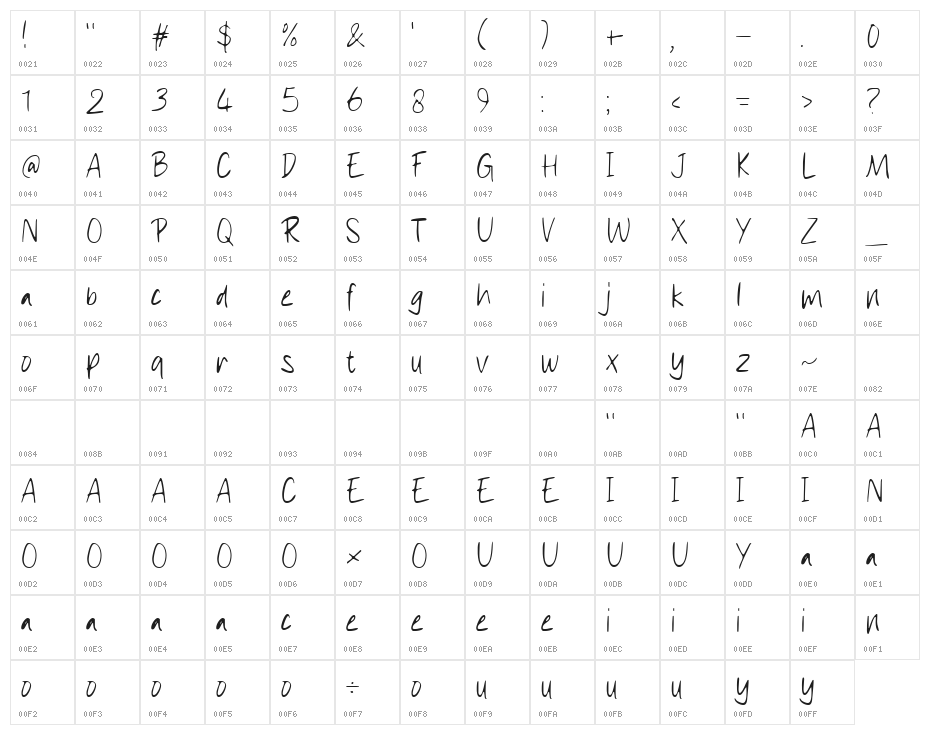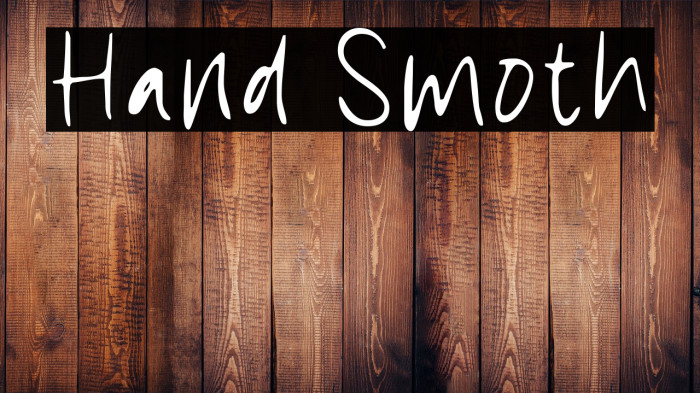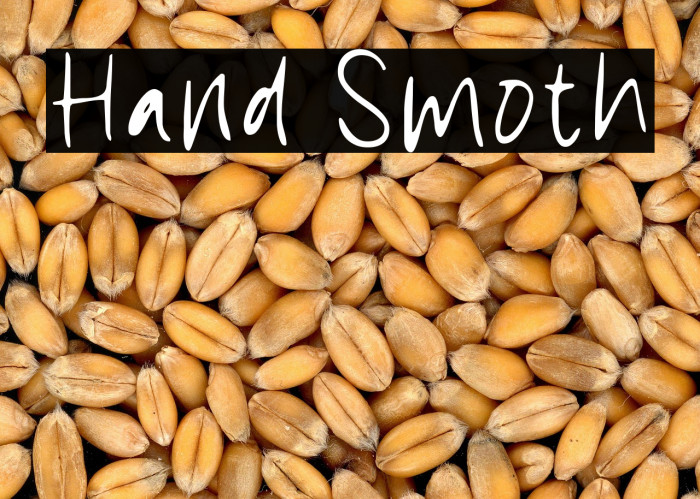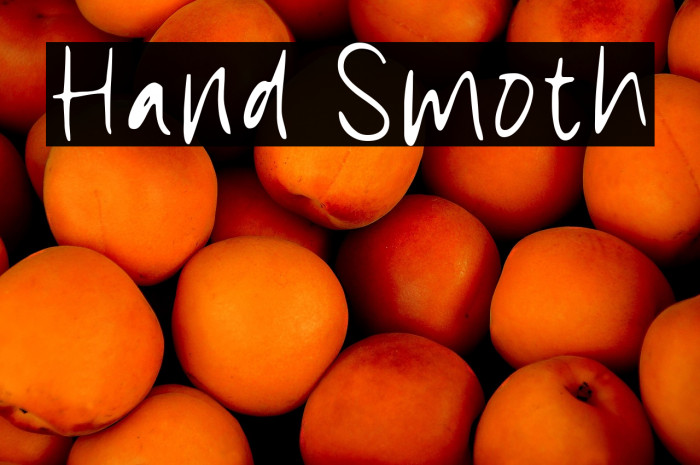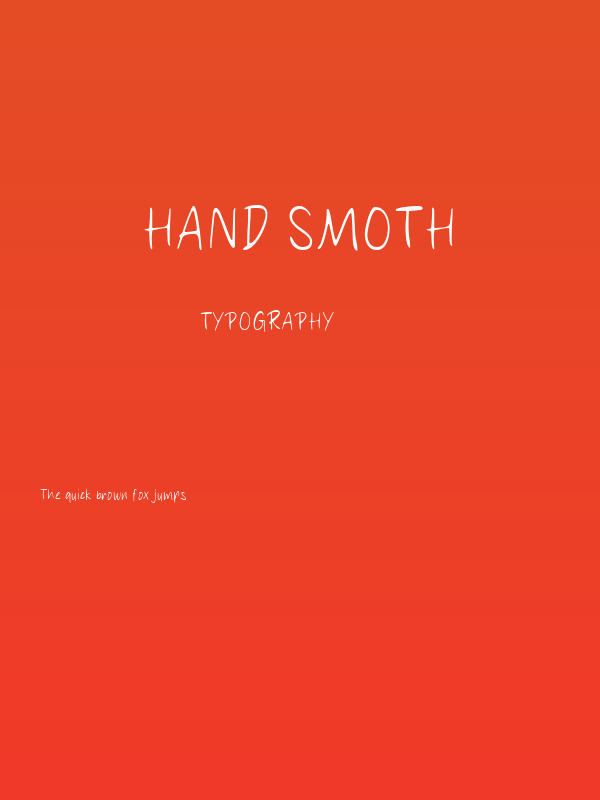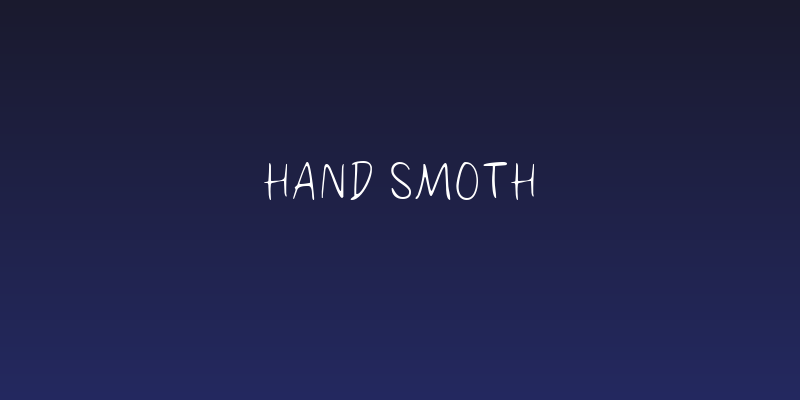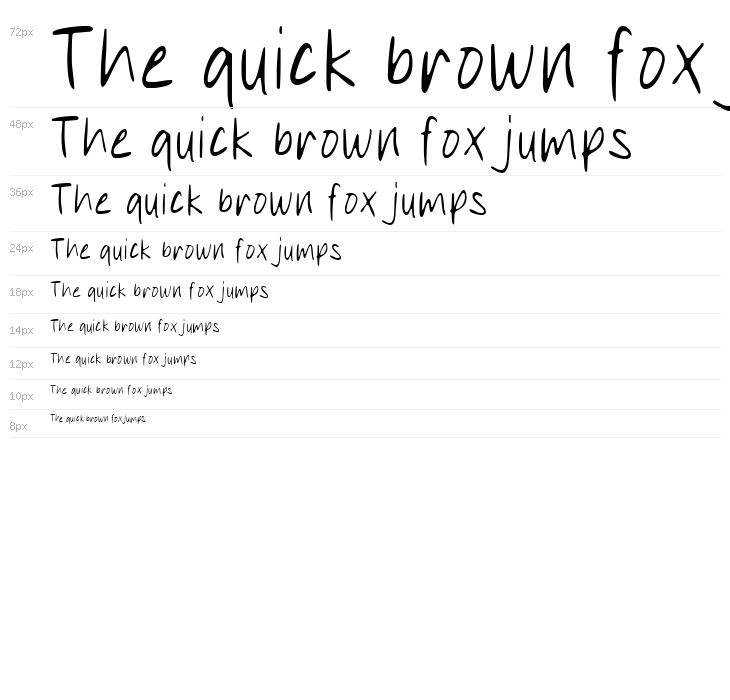
Hand Smoth Font
Hand Smoth Description
This font exhibits a casual, handwritten style that is both approachable and versatile. The letters are slightly irregular, adding a personal touch that mimics natural handwriting. The strokes are smooth and fluid, with a consistent medium weight that ensures readability. The characters are well-spaced, providing a balanced appearance that is neither too tight nor too loose. This font includes a full set of uppercase and lowercase letters, numerals, and a variety of special characters, making it suitable for diverse applications. Its informal yet clear design makes it ideal for projects that require a personal or creative flair.
| Overall Style | Casual, Personal |
| Use Case | Greeting cards, Personal letters, Creative projects |
| Proposed Projects | Ideal for greeting cards, personal letters, creative projects, and informal branding. |